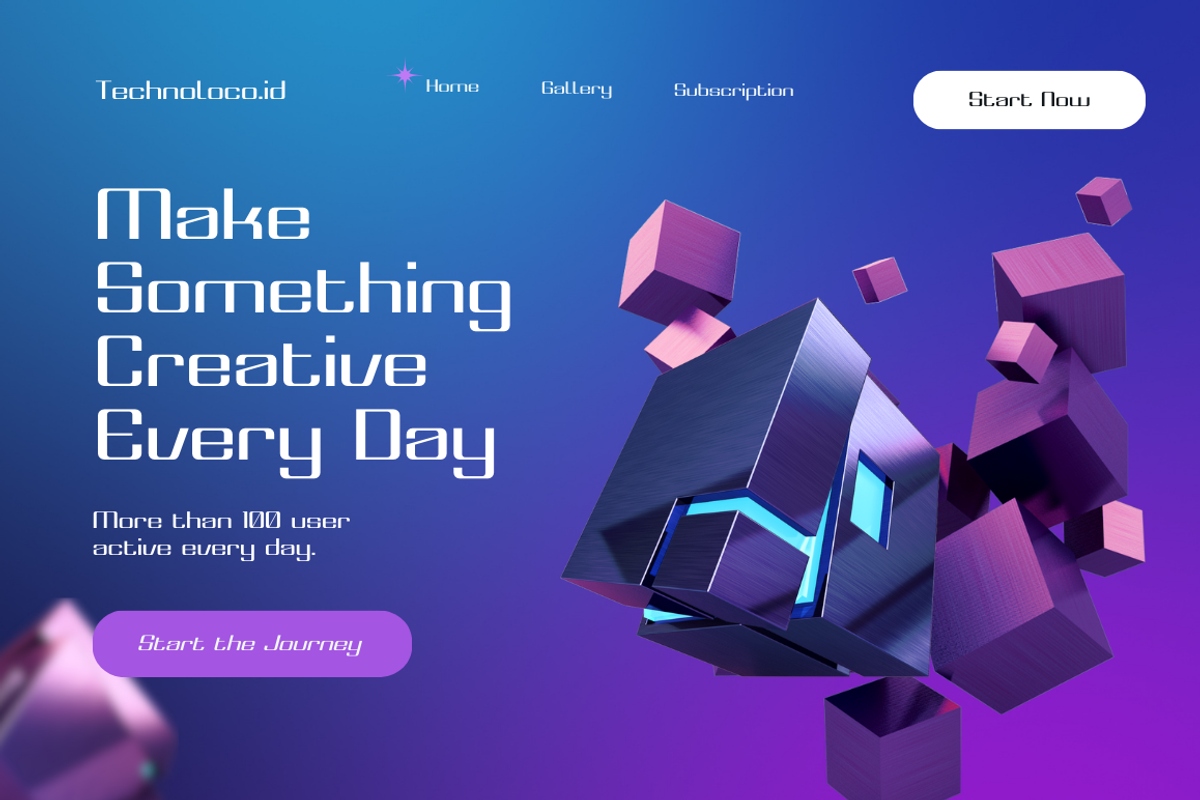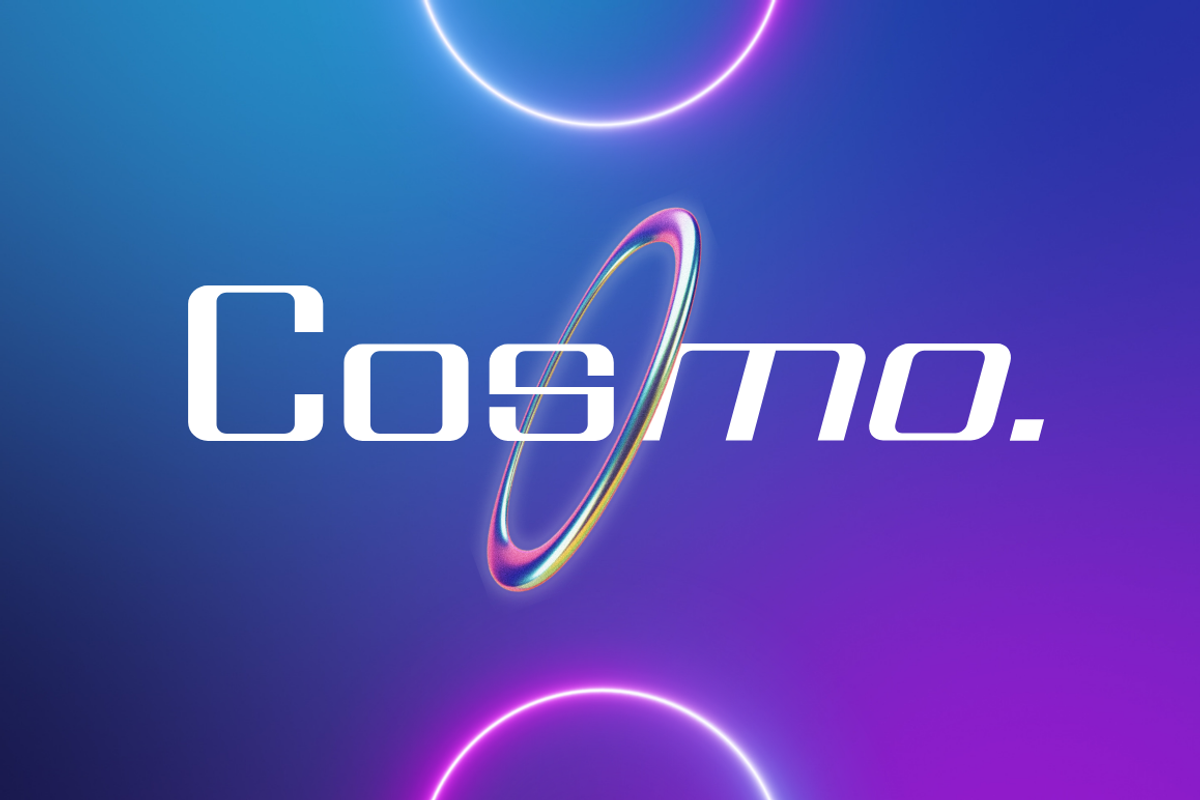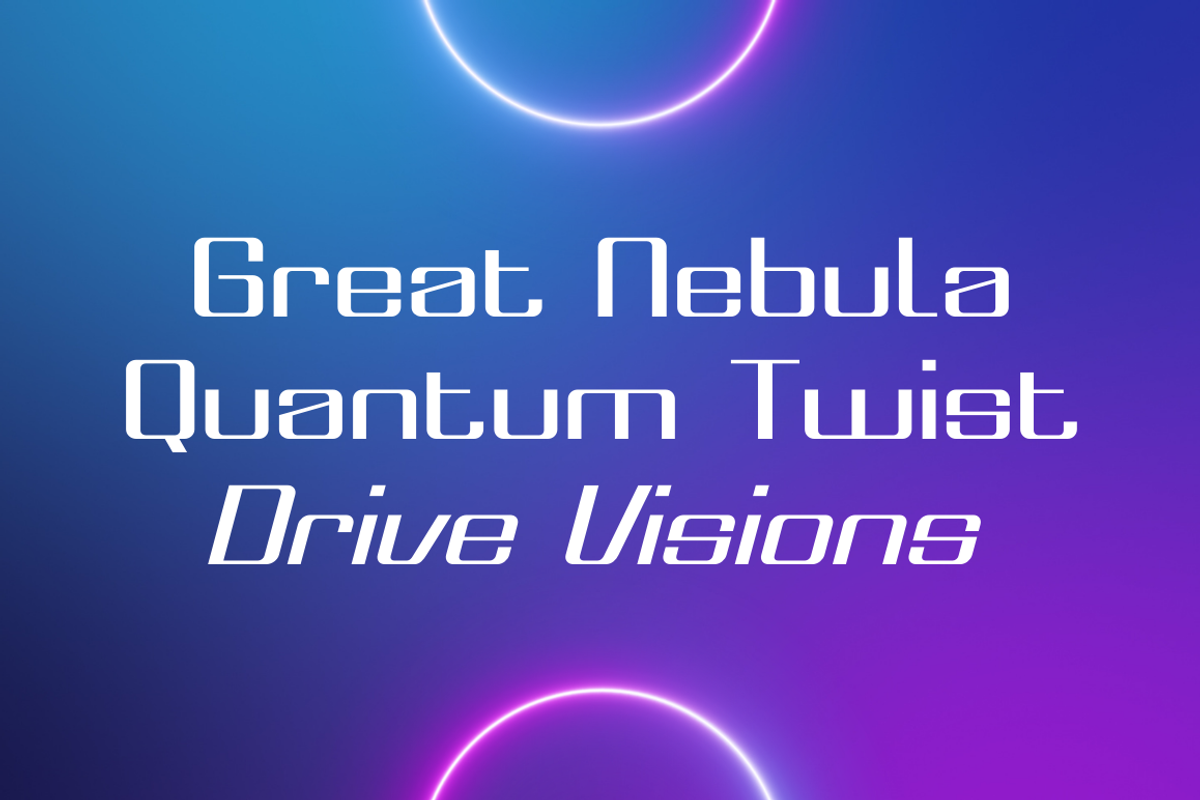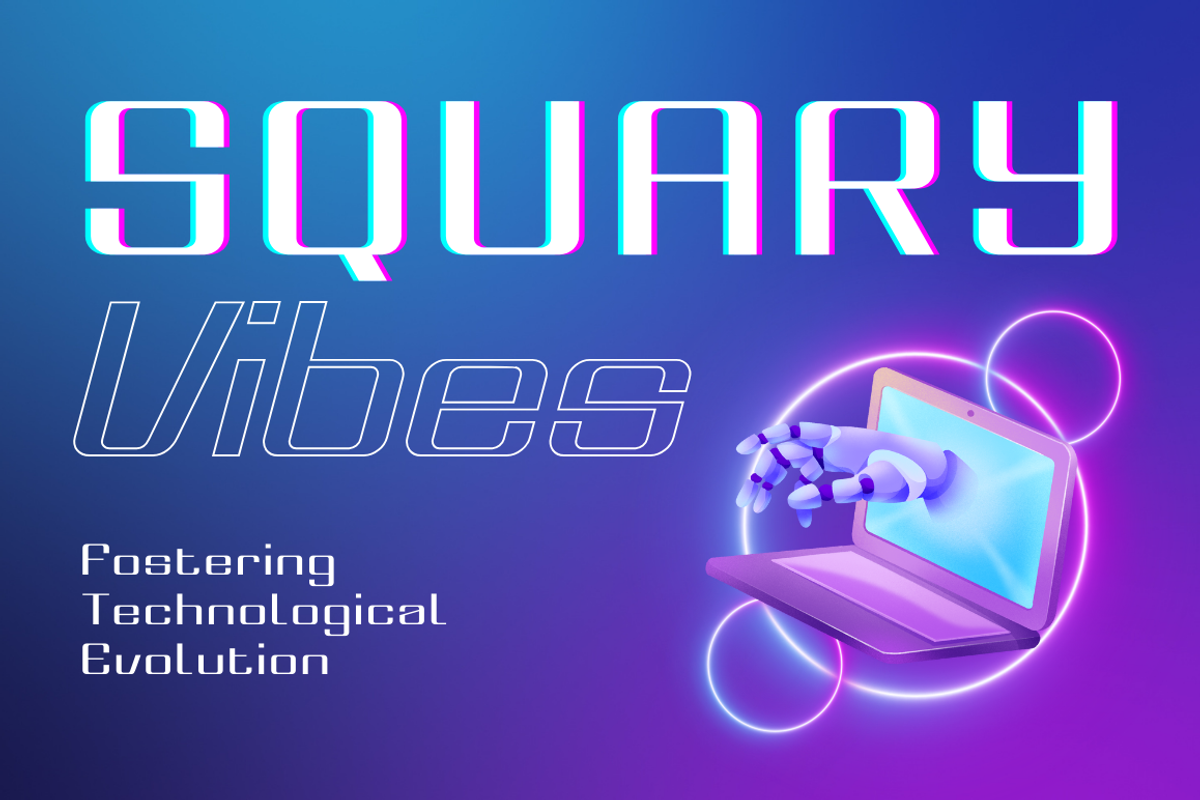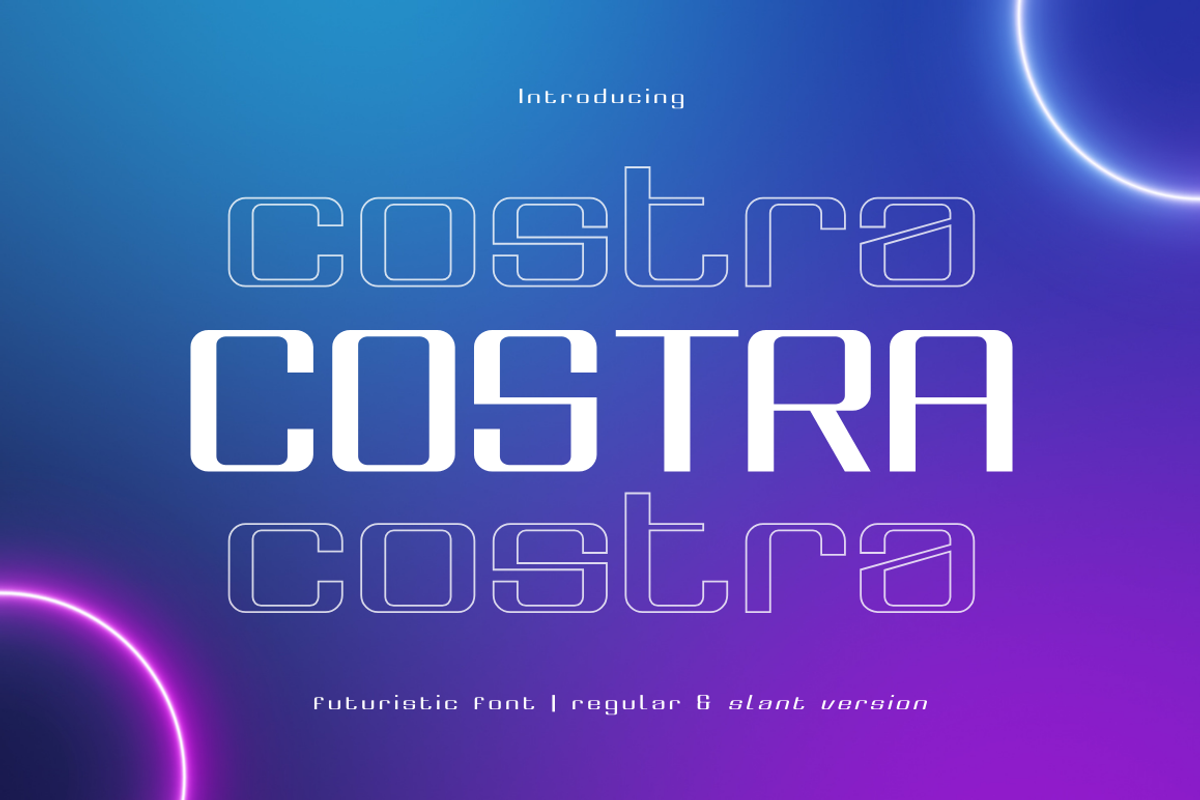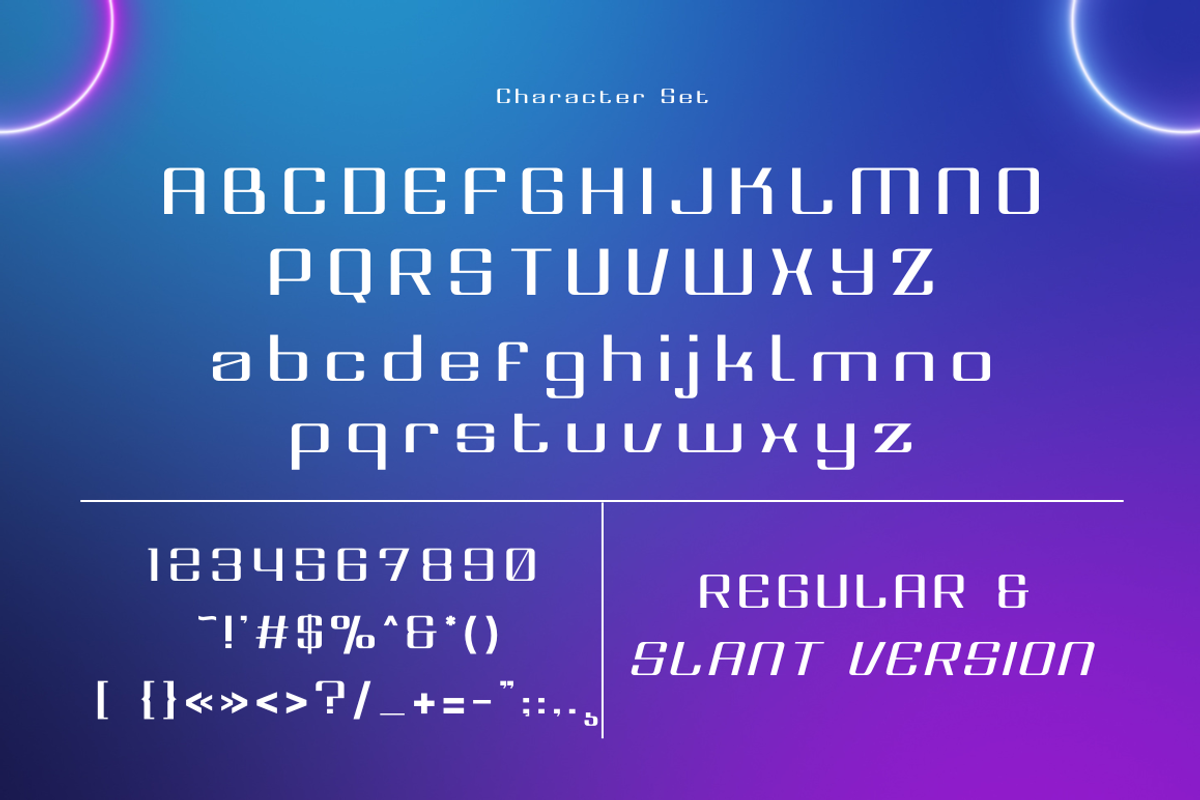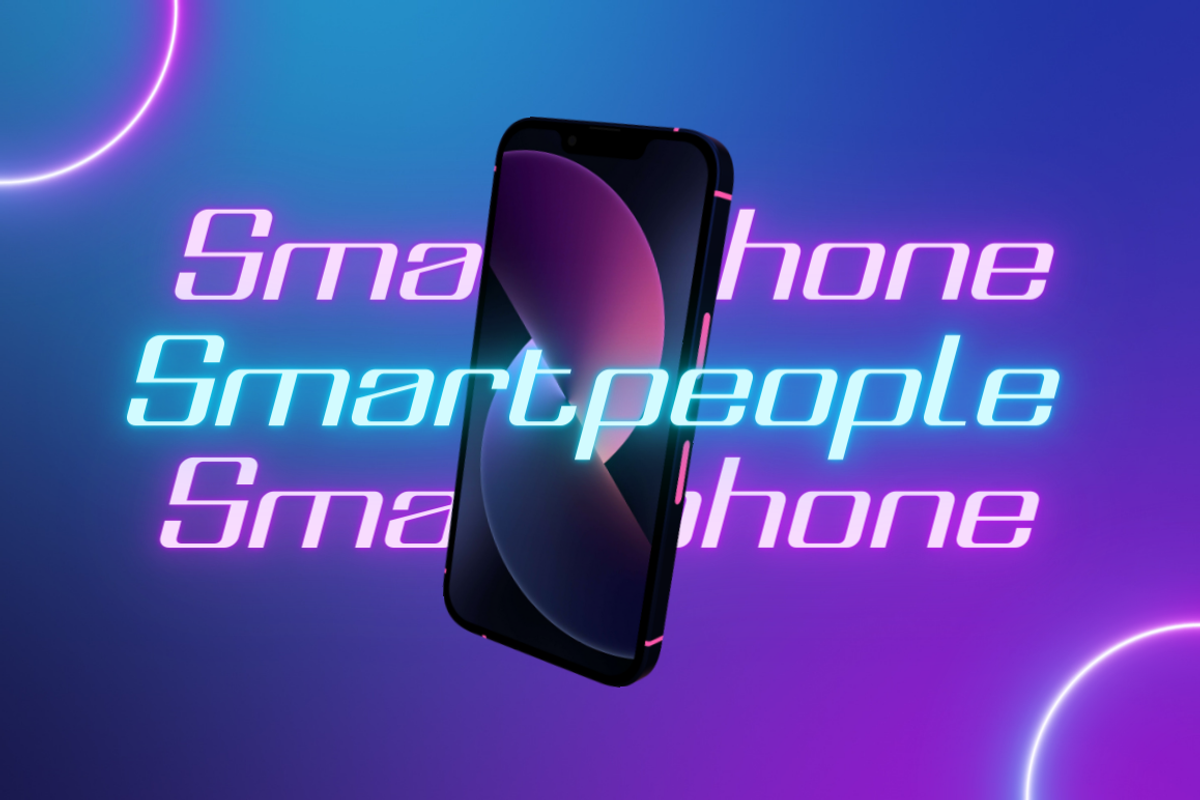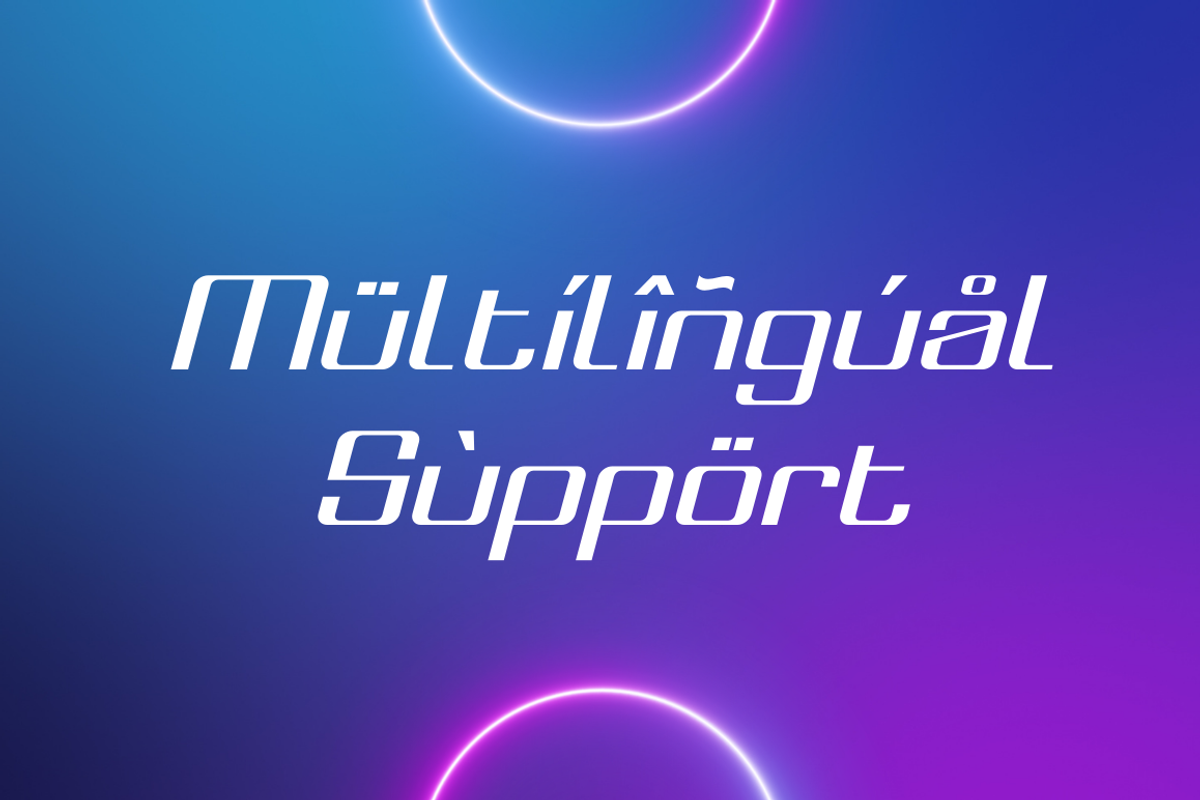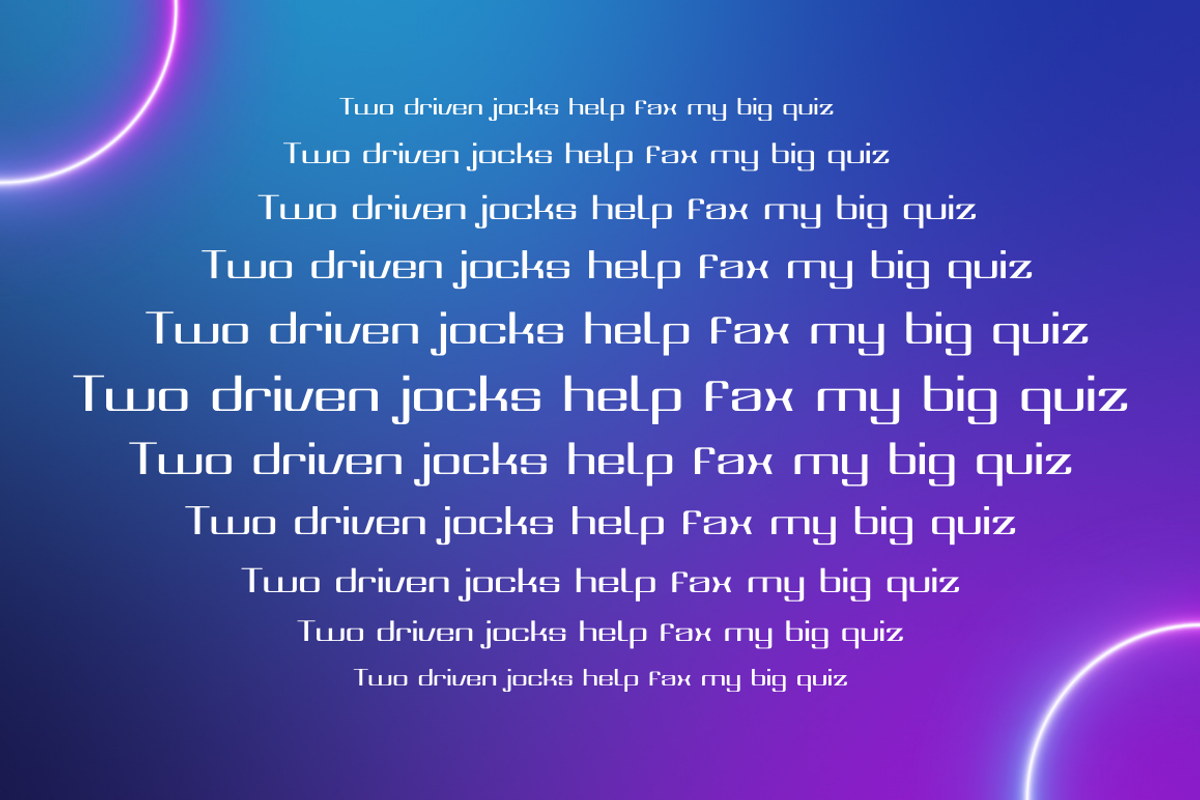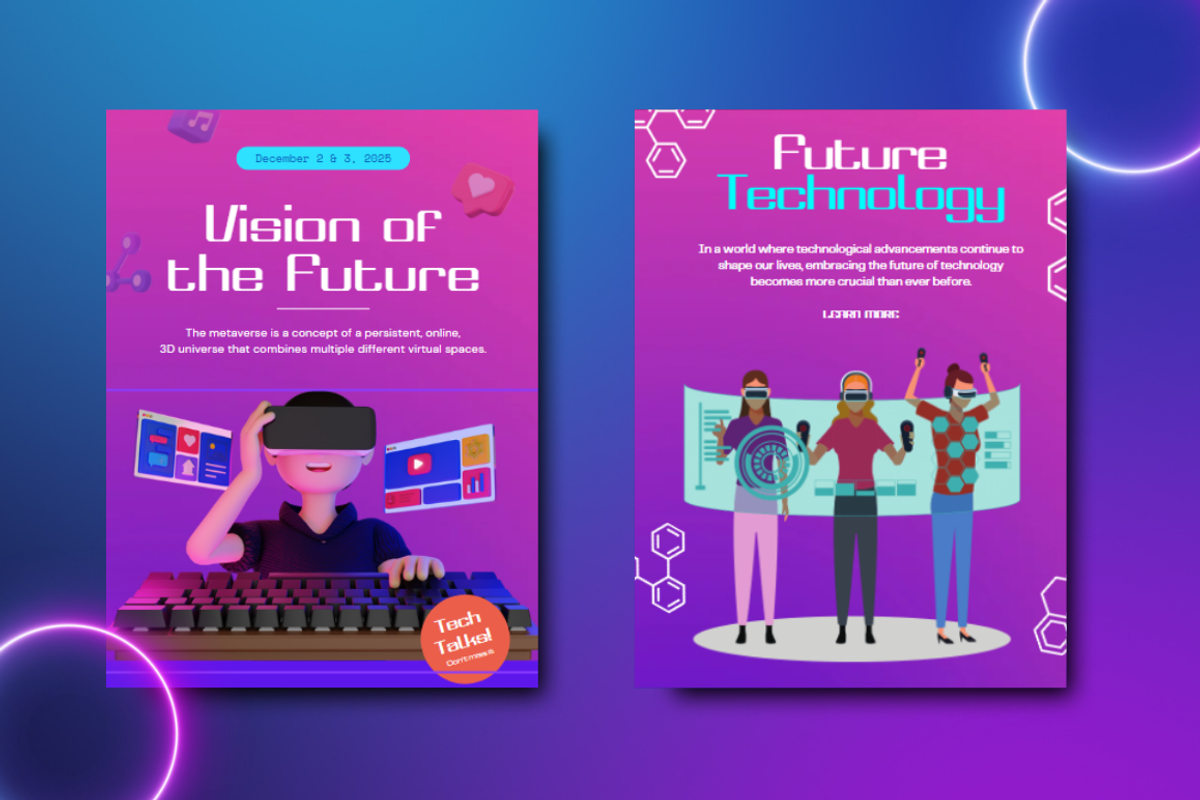
Costra – Y2k Futuristic Font
Introducing “Costra,” a font that bridges the gap between retro charm and futuristic appeal. With its sleek lines and vintage-inspired elements, this font captures the essence of a bygone era while projecting into the future. Perfect for projects that aim to evoke nostalgia with a modern twist, such as posters, logos, or branding materials. “Costra” infuses your designs with a retro-futuristic vibe, adding a touch of timeless elegance and forward-thinking style.
- Regular & Slant Version